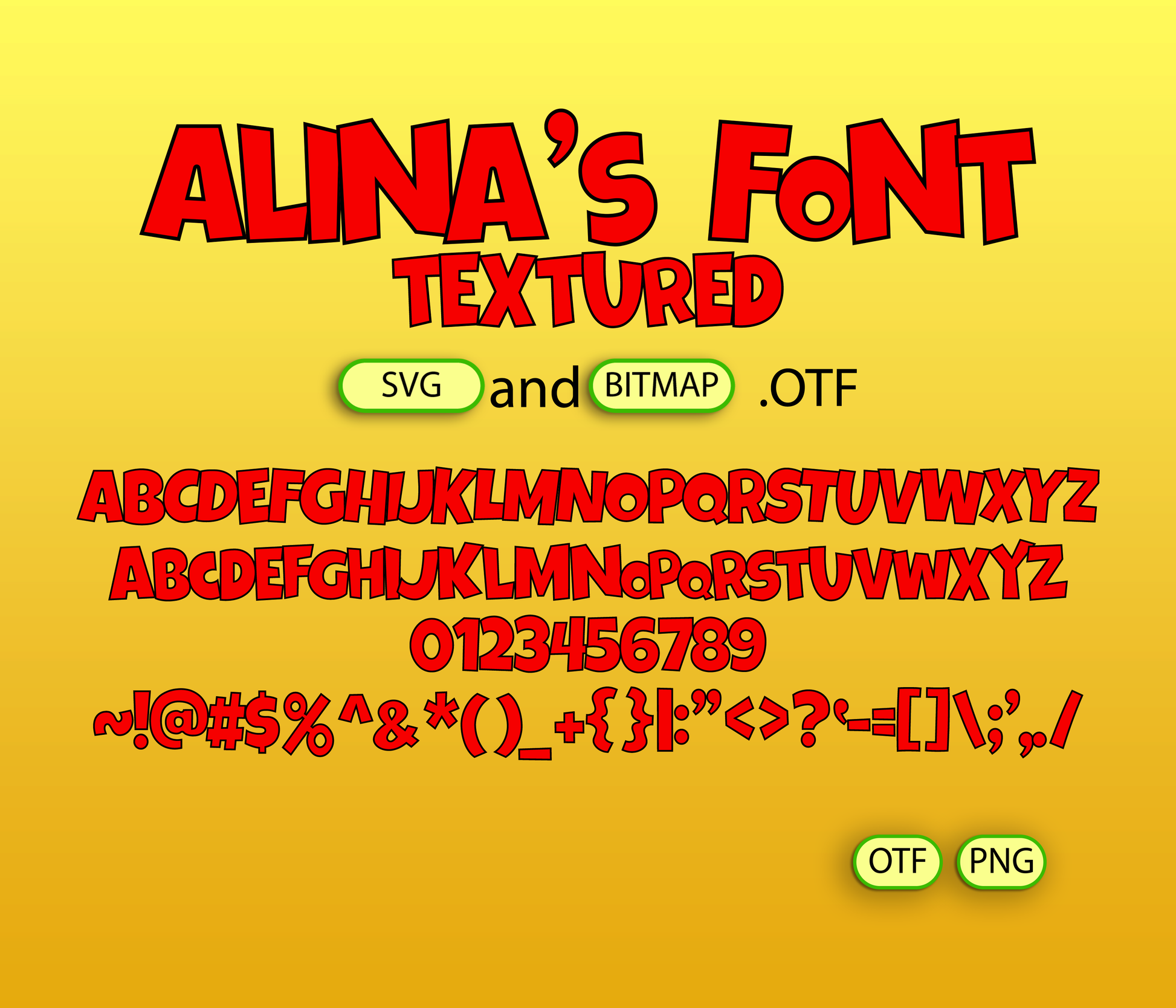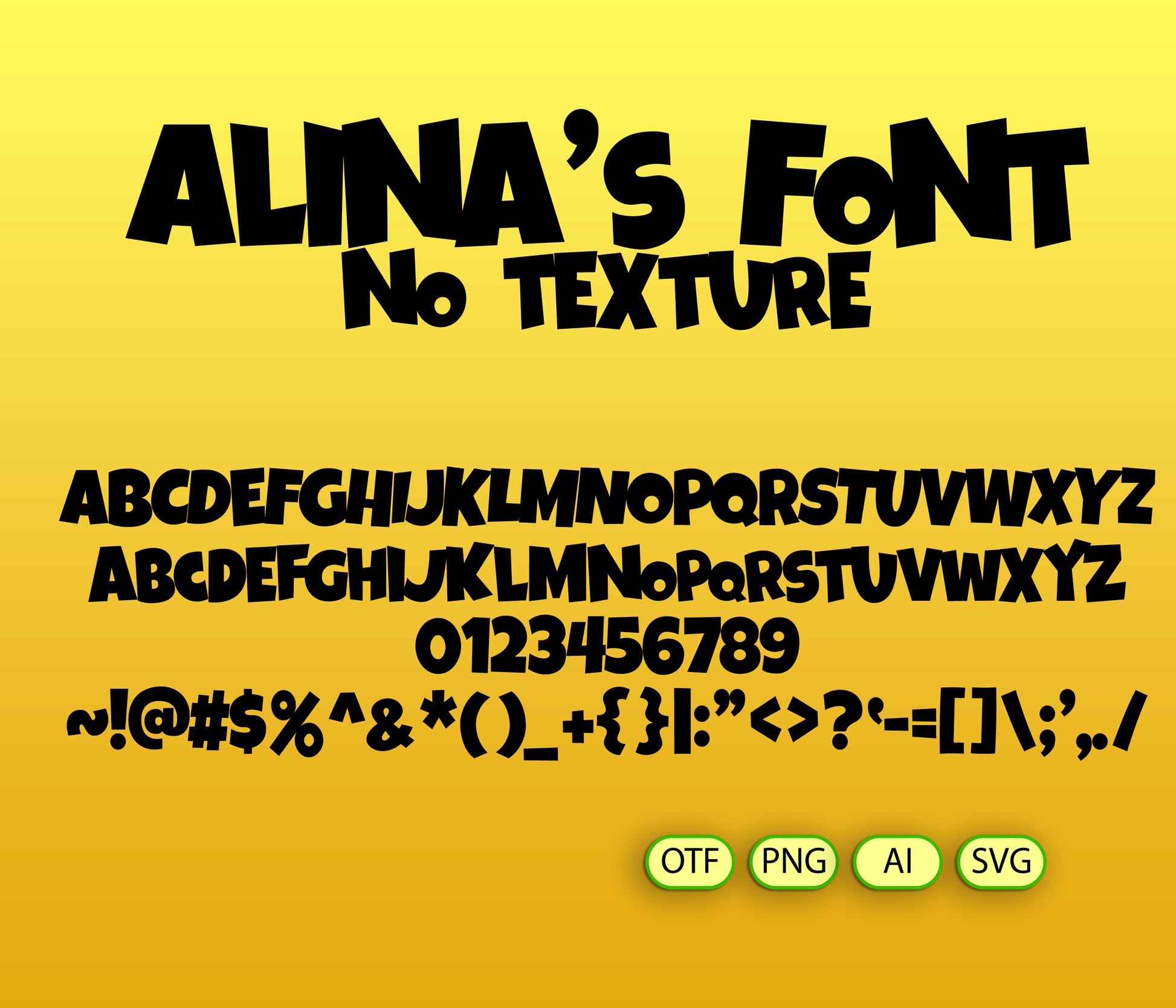
Sailor Man Hero Font Textured
Sail into Adventure with the Sailor Hero Font
Capture the classic charm and adventurous spirit of a beloved animated character with our Sailor Hero font. Perfect for fans, event planners, and designers, this font brings the lively and rugged energy of the iconic sailor to your designs. Whether creating event invitations, themed merchandise, or digital content, our Sailor Hero font ensures your projects resonate with fun and adventure.
Our Sailor Hero font features bold, cartoonish lines and playful characters, ideal for:
- Event Invitations: Engaging invites for retro-themed parties, movie nights, or comic conventions.
- Merchandise Design: T-shirts, posters, and accessories that capture the essence of the iconic sailor.
- Digital Media: Eye-catching headers and graphics for websites, blogs, and social media.
- Educational Materials: Presentations, worksheets, and content focused on animation history or classic cartoons.
- Personal Projects: Vintage fun for scrapbooking, DIY crafts, or home decor.
To ensure maximum usability, our Sailor Hero font includes both textured and non-textured variants. The non-textured version ensures compatibility with all software, including Canva, making it easy to use across various digital and print platforms.
Our Sailor Hero font pays tribute to a legendary character, empowering you to infuse your designs with his spirited and adventurous essence. Ready to bring a wave of creativity to your projects? This font is your key.